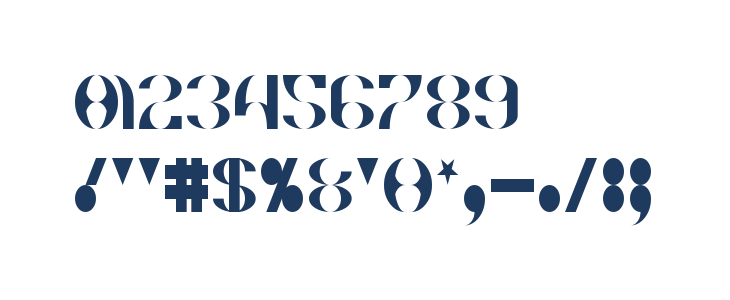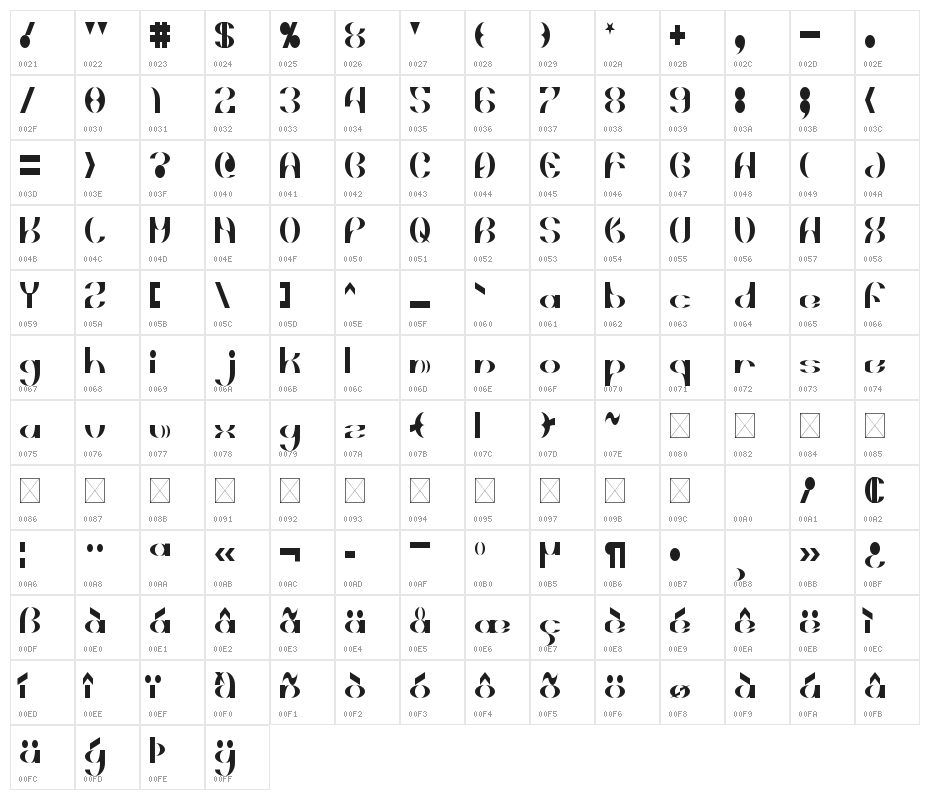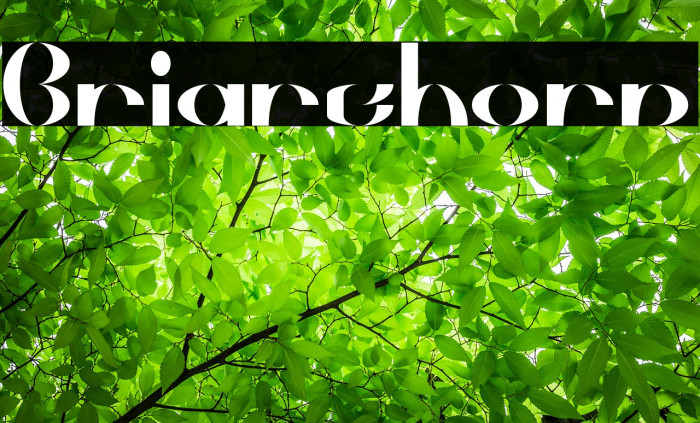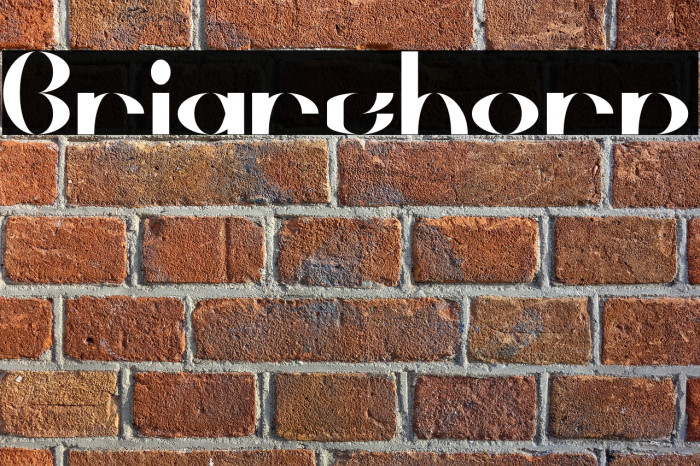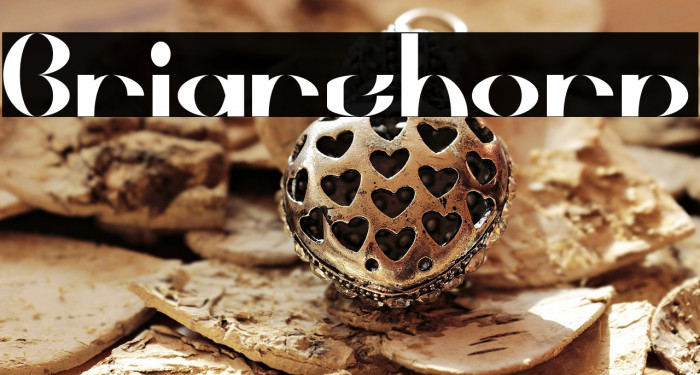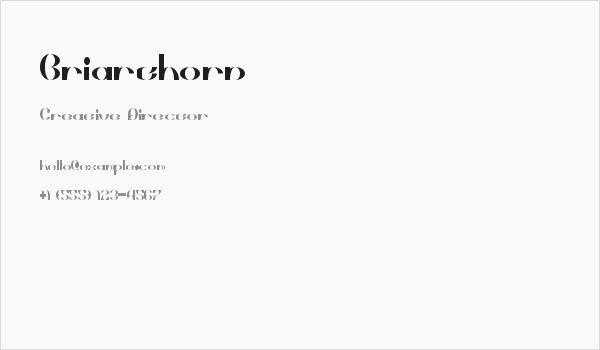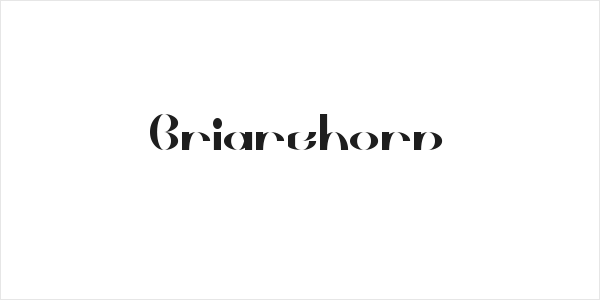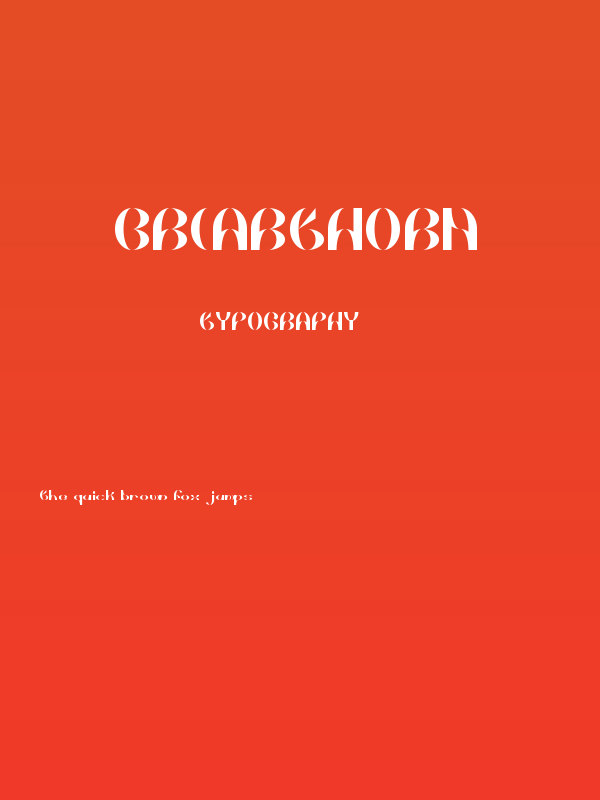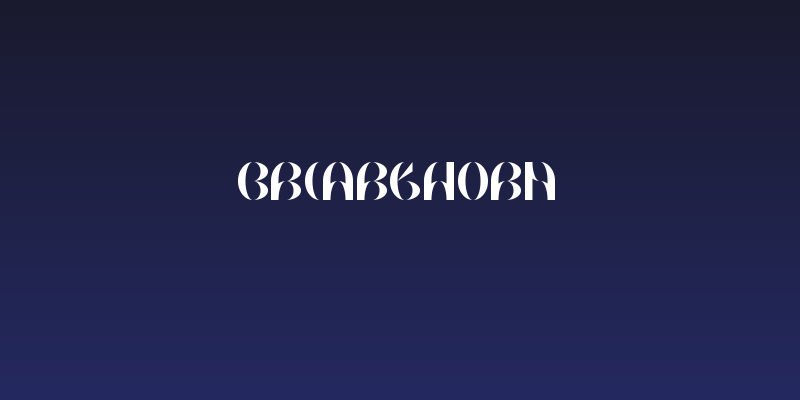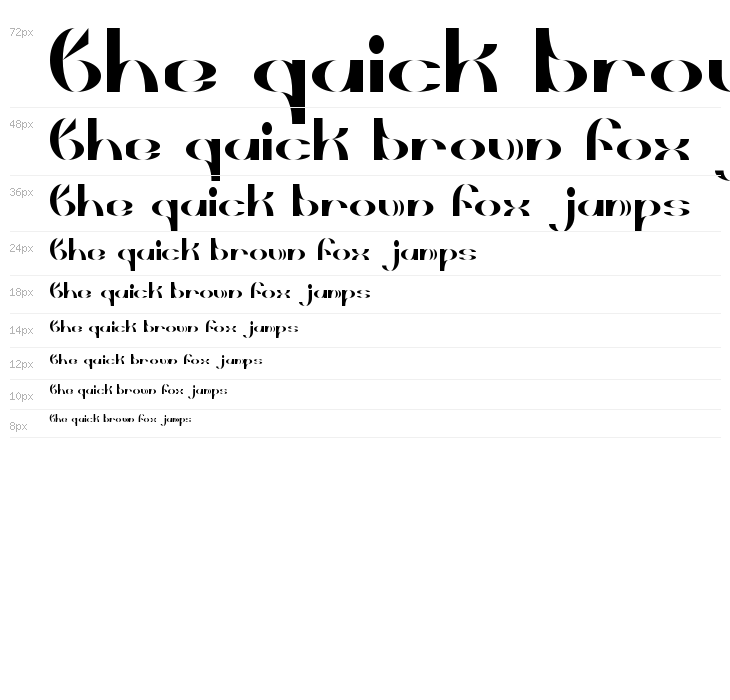
Briarthorn Font
Briarthorn Description
This font features a bold and striking design with high contrast between thick and thin strokes. The characters are crafted with a unique blend of geometric shapes and sharp angles, creating a modern and artistic appearance. The uppercase letters exhibit a strong presence, while the lowercase letters maintain a cohesive style with distinctive curves and cuts. Numbers and special characters are designed to complement the overall aesthetic, making this font suitable for eye-catching displays. The spacing between characters is tight, enhancing the boldness and impact of the text.